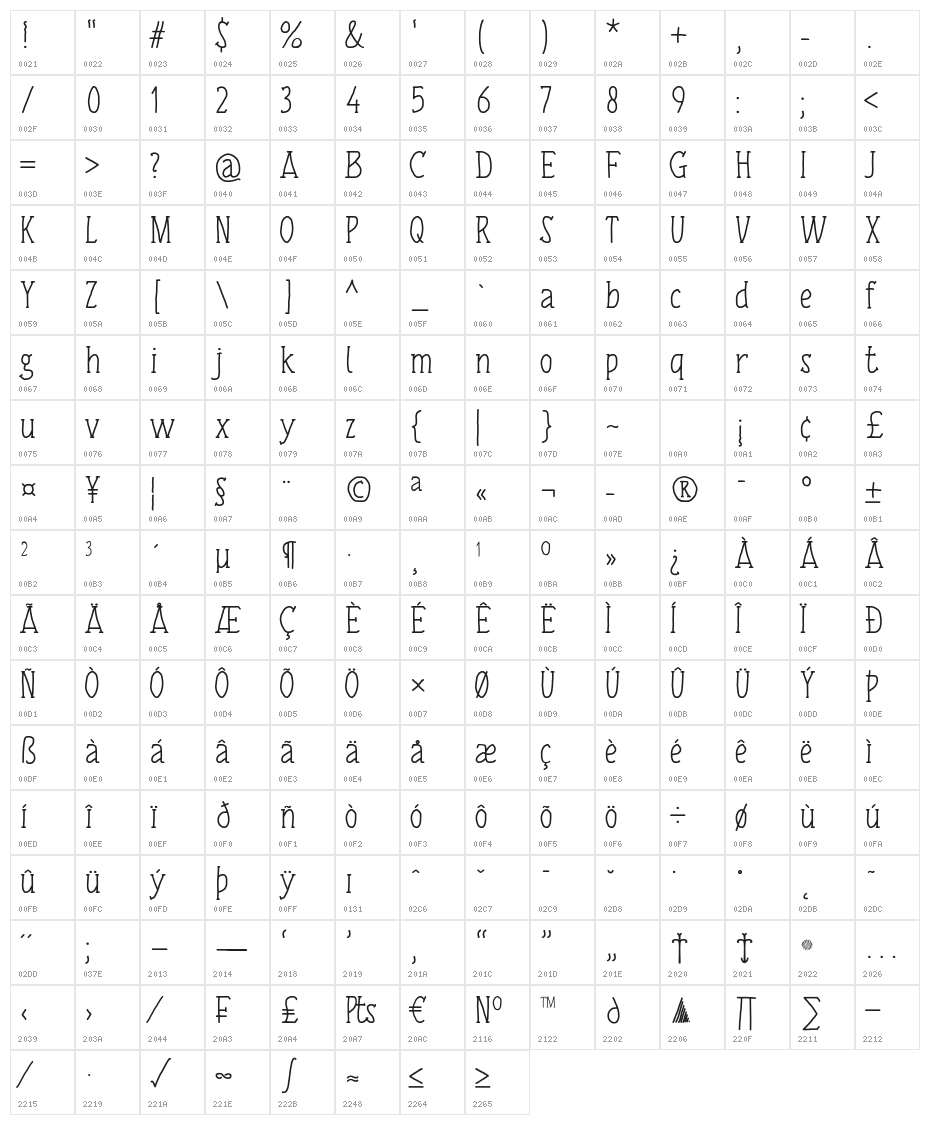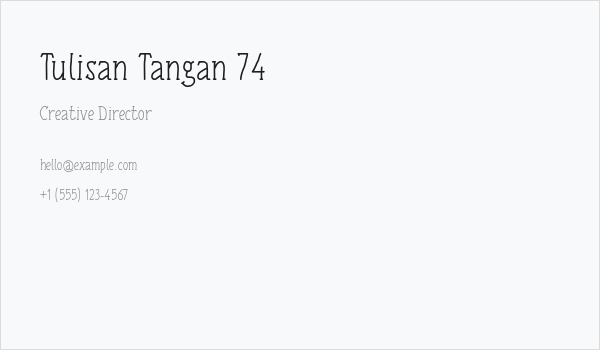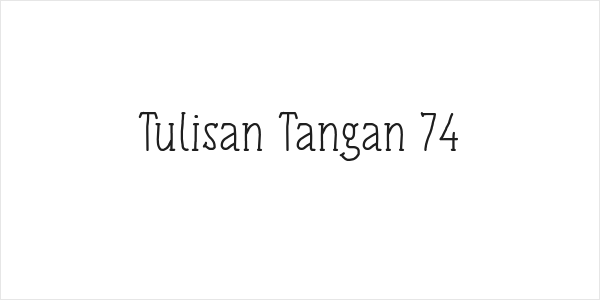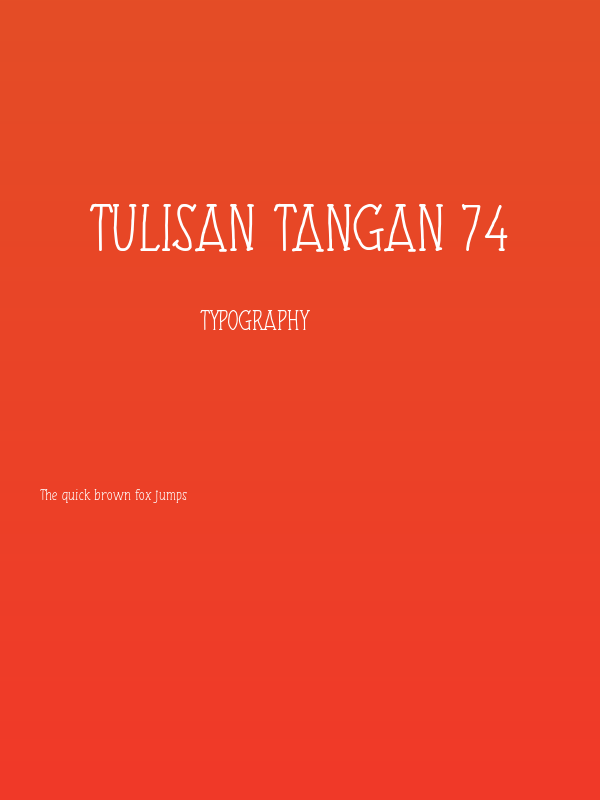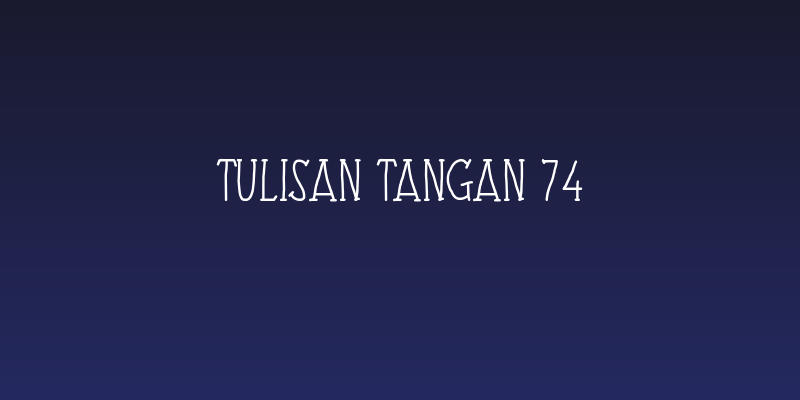
Tulisan Tangan 74 Font
Tulisan Tangan 74 Description
This font features a playful, handwritten style that exudes a casual and friendly vibe. The characters are slightly irregular, mimicking the natural flow of handwriting. The uppercase letters are tall and slender, while the lowercase letters maintain a consistent height, adding to the font's readability. The numbers and special characters are crafted with the same whimsical touch, ensuring a cohesive look across all text. This font is perfect for projects that require a personal touch, such as greeting cards, invitations, or creative branding materials. Its unique style makes it stand out, yet it remains legible and versatile for various design needs.
Overall StyleCasual, Playful
Use CaseHeadlines, Creative projects, Personal notes
Proposed ProjectsIdeal for greeting cards, invitations, creative branding, and personal projects.